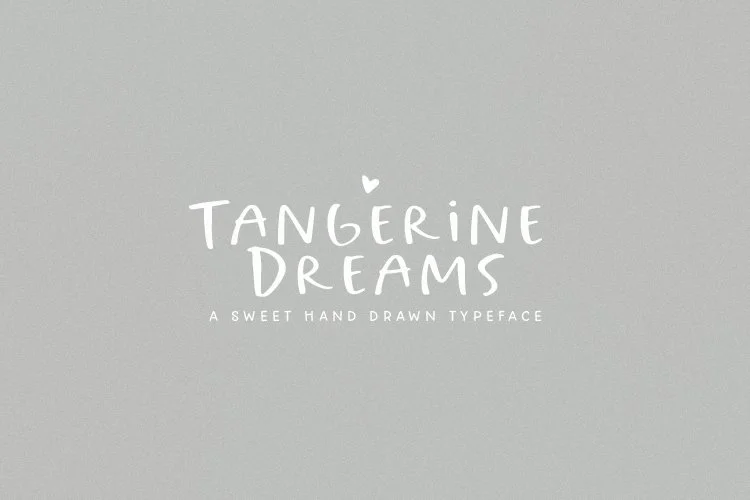
Introducing, Tangerine Dreams, a super simple, all caps sans serif typeface, designed for super legible text, logos, quotes, totes, greeting cards and more!
Tangerine Dreams (OTF) - A light and simple typeface modeled after trendy social media quotes.
English Only Glyphs.
Includes select ligatures & extras.